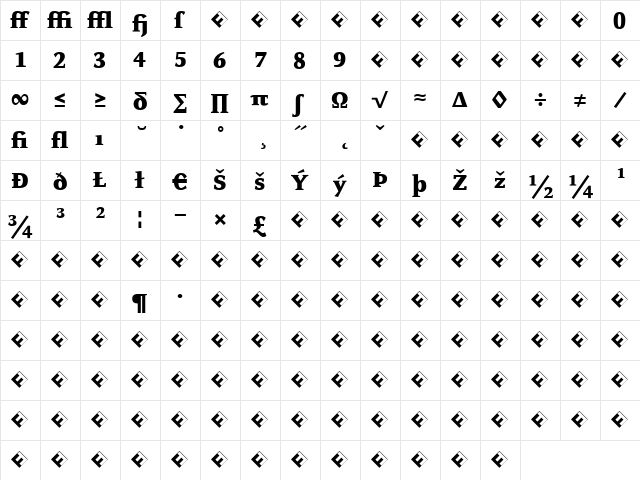
Celeste-BlackExpert Regular
| Foundry | Chris Burke, published by Fontshop International for the FontFont library |
Design Context for Celeste-BlackExpert Typeface
Celeste-BlackExpert takes a measured approach to typography — its balanced proportions and neutral character make it a reliable workhorse for both digital and print work.